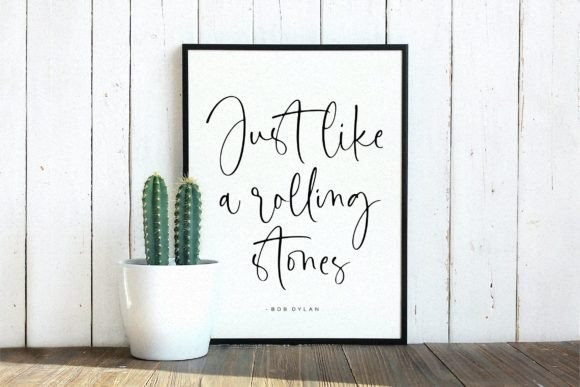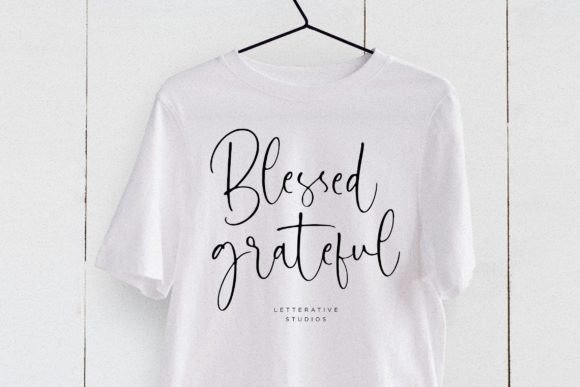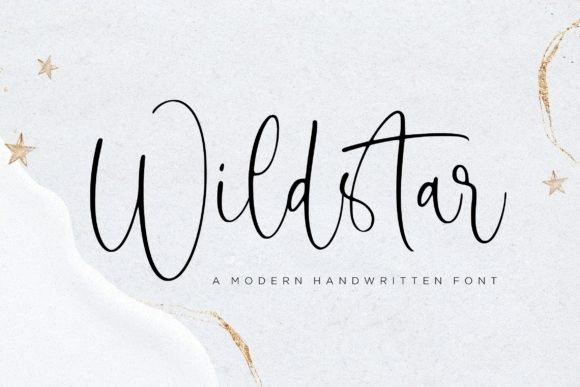
Wildstar Font
Wildstar Script Font is a modern handwritten font ideal for elegant logos, wedding stationery, websites, personal branding, and any other projects requiring a luxurious handwritten touch.